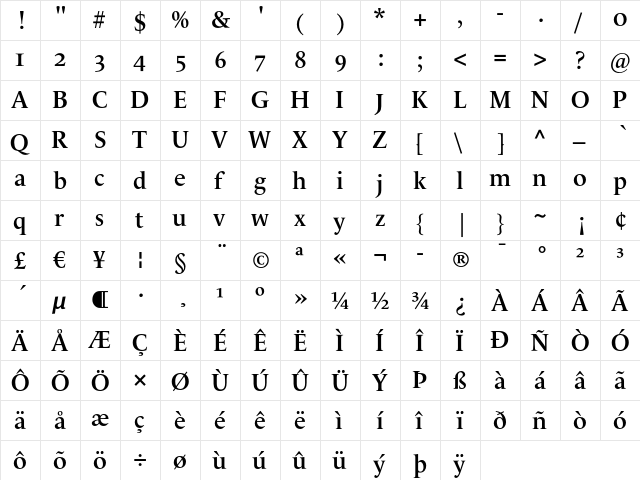
LeMonde Livre OsF SemiBold
Design Context for LeMonde Livre OsF Typeface
LeMonde Livre OsF offers clean, dependable letterforms without strong stylistic allegiance, making it a practical choice for designers who need flexibility. Its bold stroke weight gives it real presence on the page.